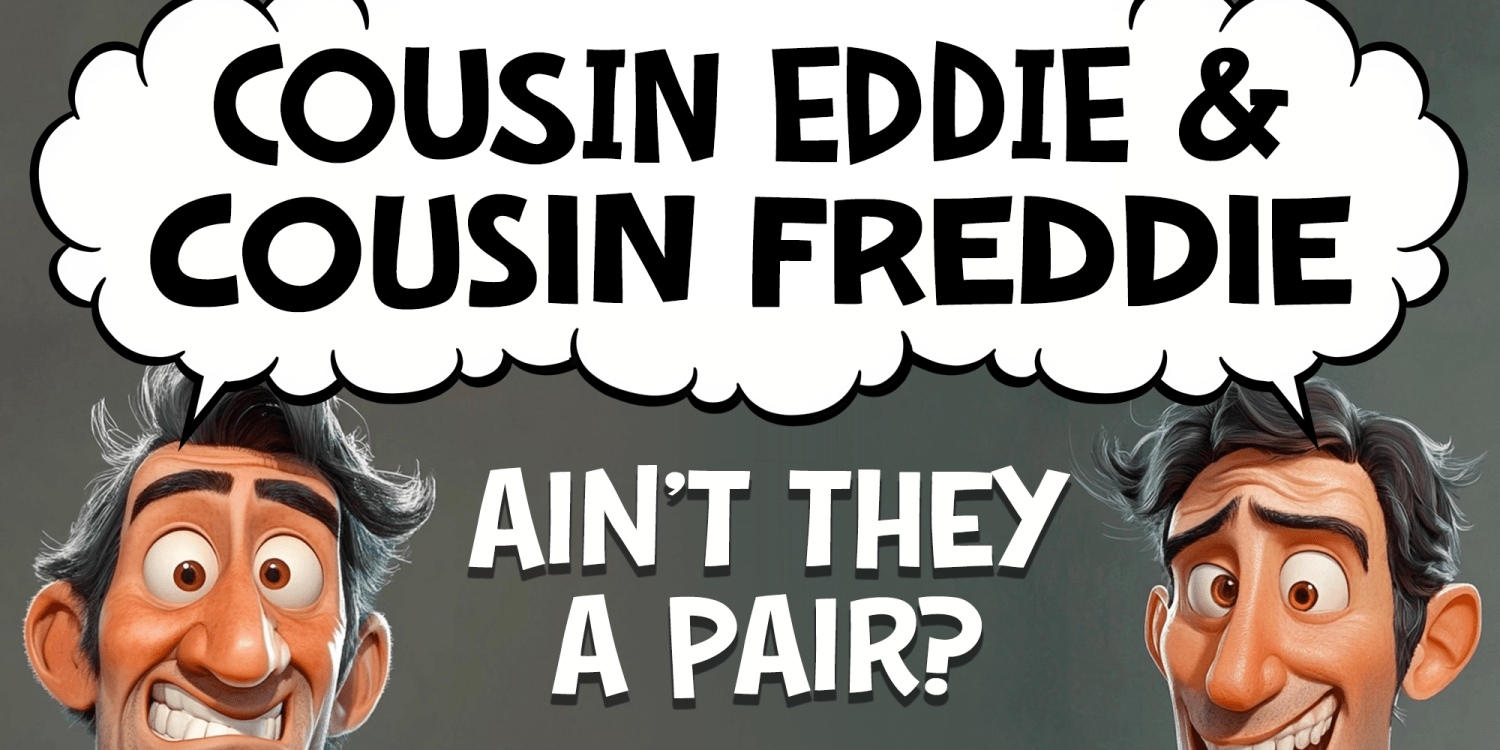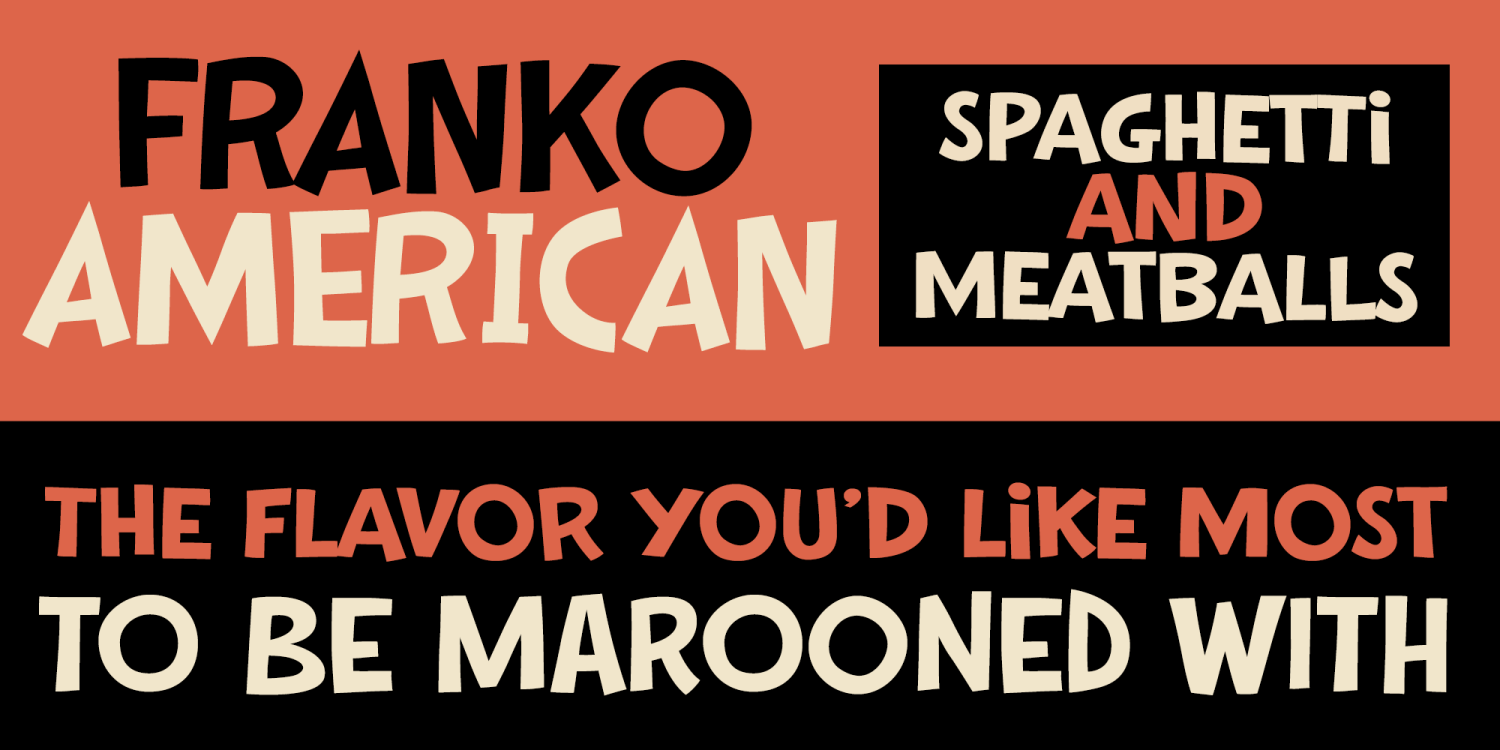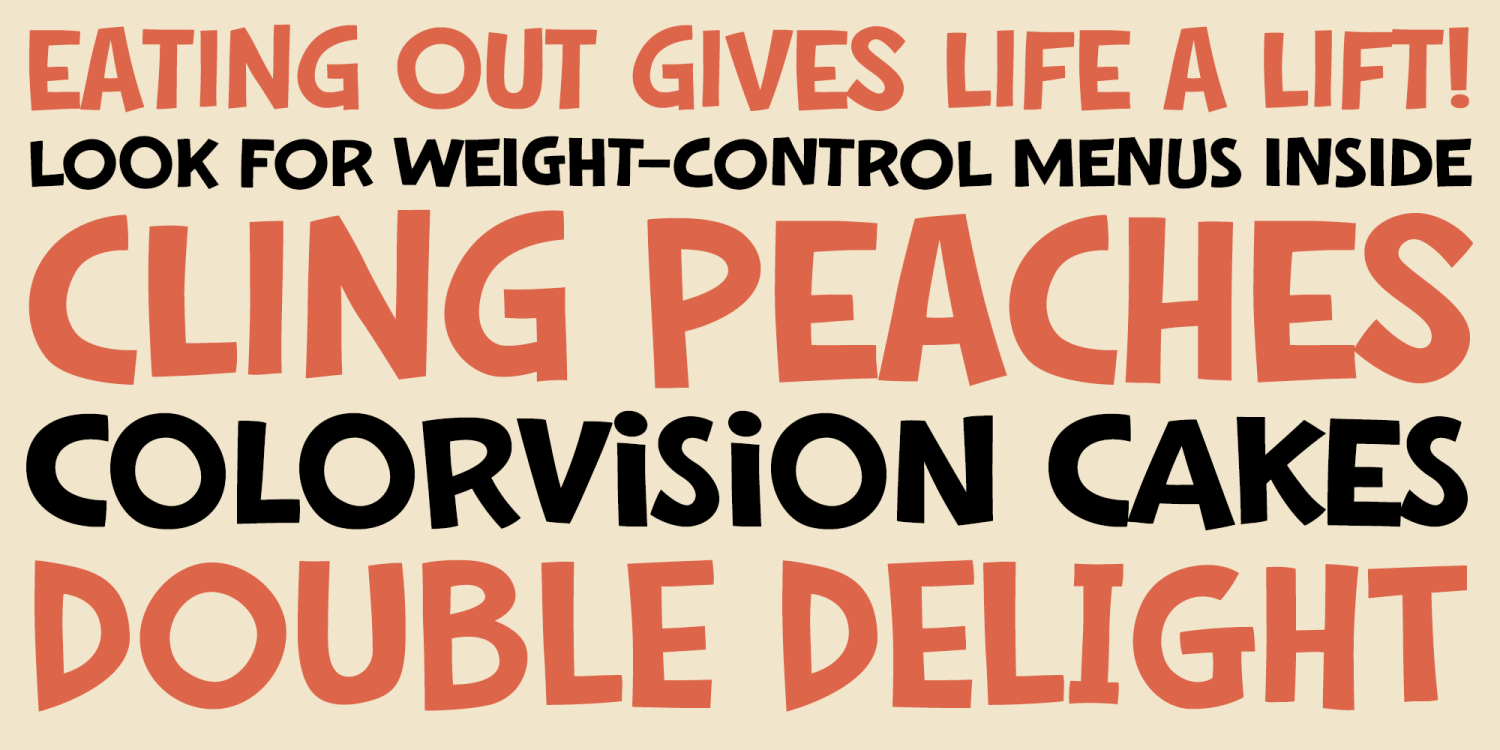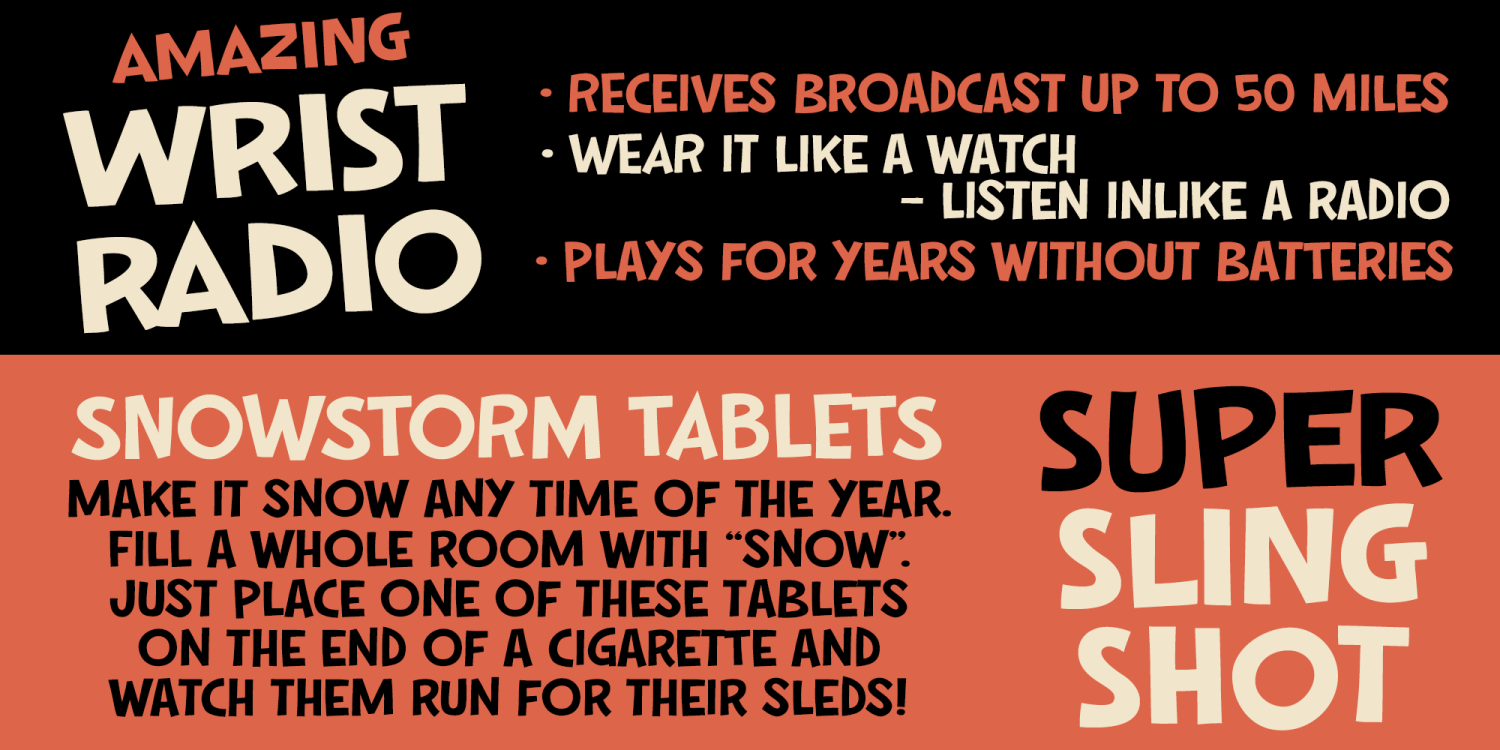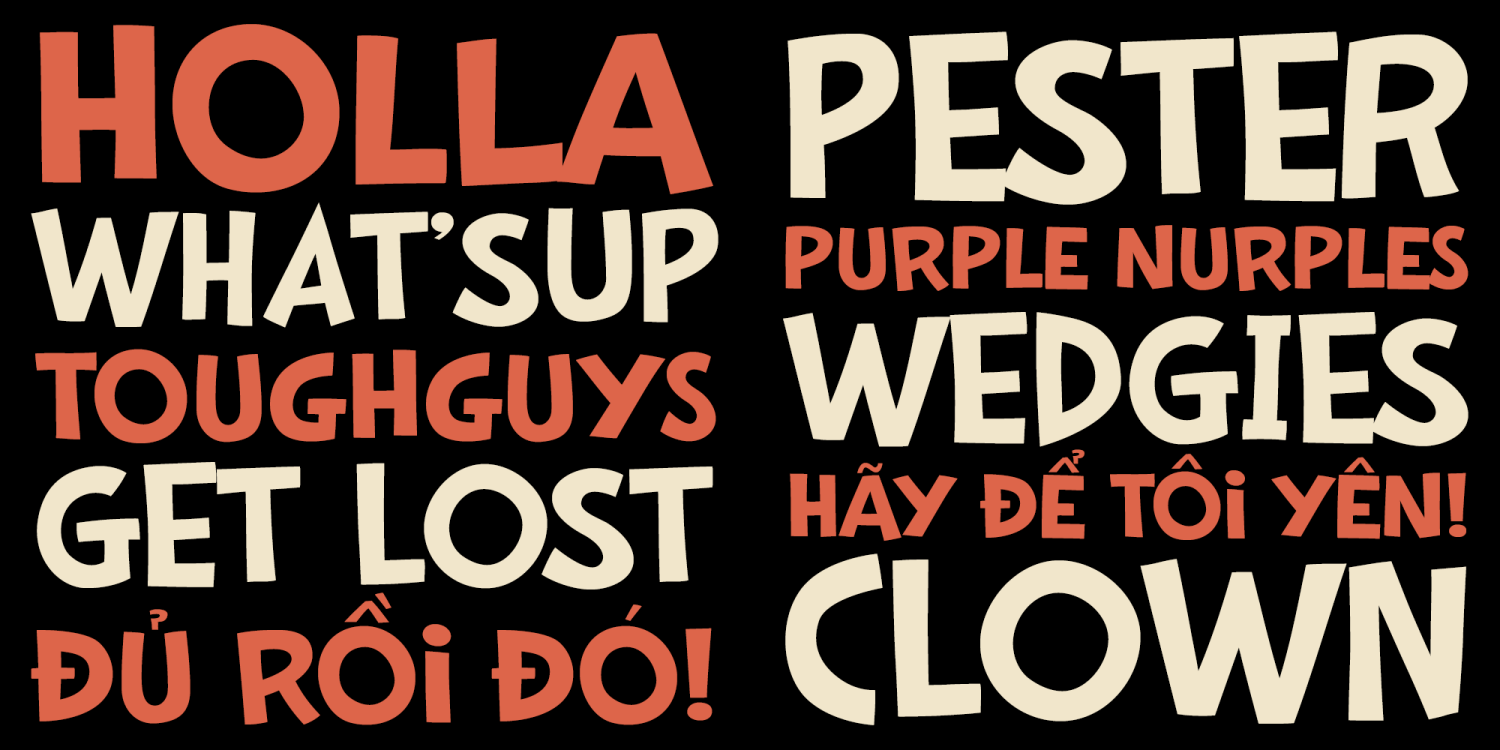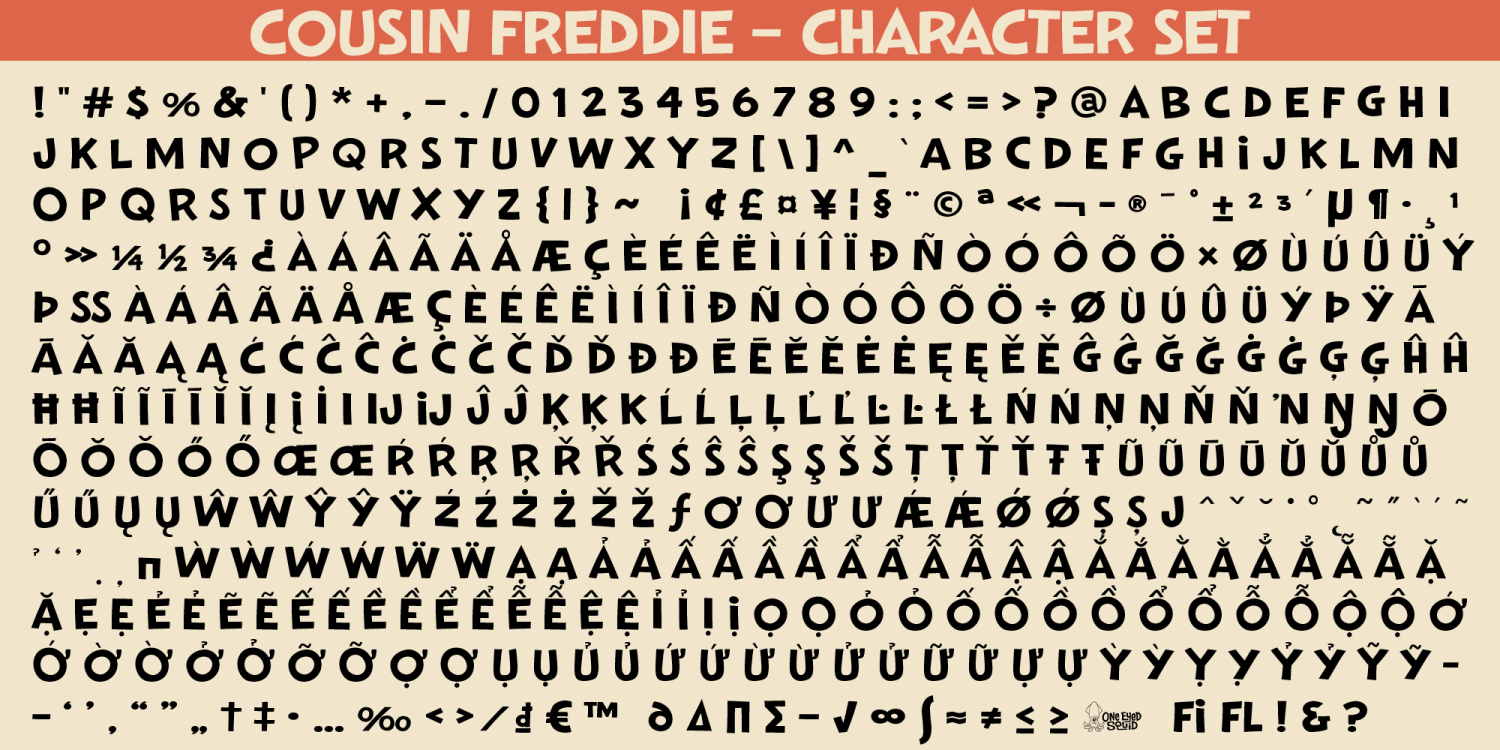
Cousins
Cousin is a wacky hand-drawn font duo featuring Eddie and Freddie, two loosely related styles with a shared offbeat charm and playful family resemblance. Full of quirky energy and expressive personality, these fonts bring a loose, humorous feel to designs that want to feel lively, unconventional, and full of character. Whether used together or on their own, Cousin Eddie and Cousin Freddie are ideal for headlines, posters, branding, packaging, greeting cards, social media graphics, and other creative projects that benefit from a fun, handmade typographic voice. Includes extended Latin language support, including Vietnamese.
2 Styles Included
Cousin Eddie
Cousin Freddie